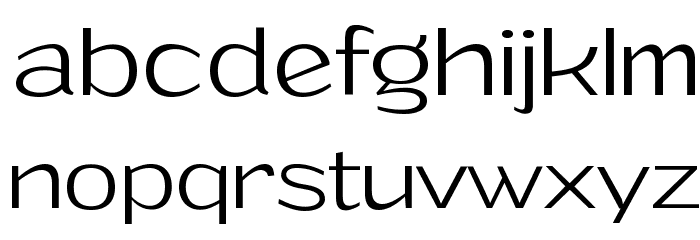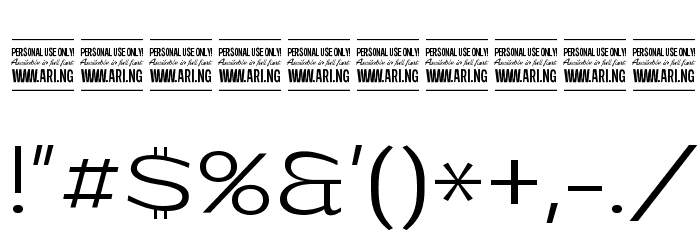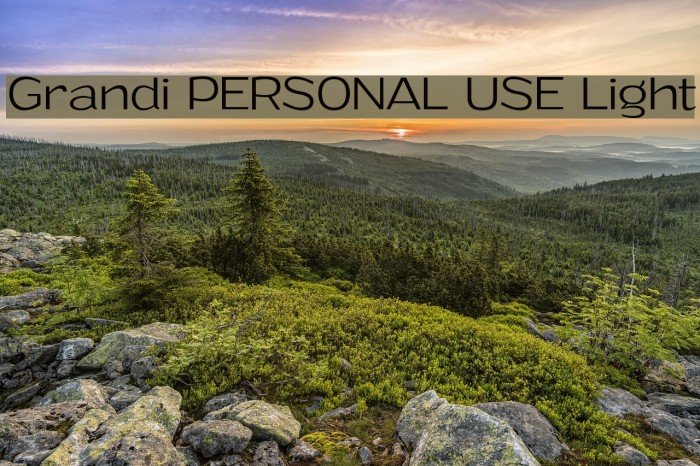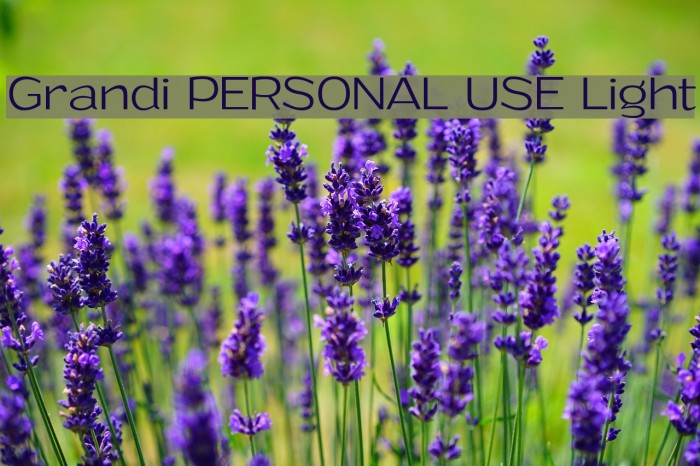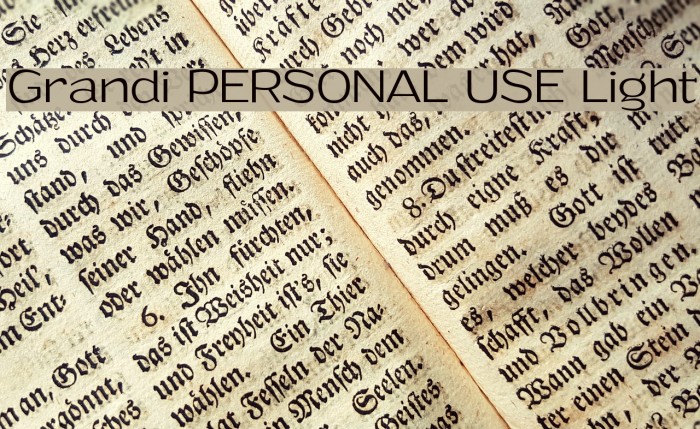
Grandi PERSONAL USE Light Font
This font features a clean and modern aesthetic with a sans-serif style. The characters are uniformly designed with a consistent stroke width, offering a sleek and contemporary look. The uppercase and lowercase letters are well-proportioned, making it suitable for a variety of design applications. The numerals and special characters maintain the same design integrity, ensuring a cohesive appearance across all text elements. Its simplicity and clarity make it an excellent choice for digital and print media.
A modern, clean sans-serif font with uniform stroke width.
- Proposed Projects: Ideal for branding, web design, advertising, and editorial projects.